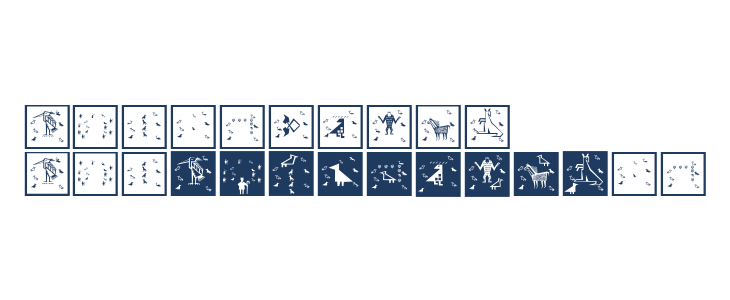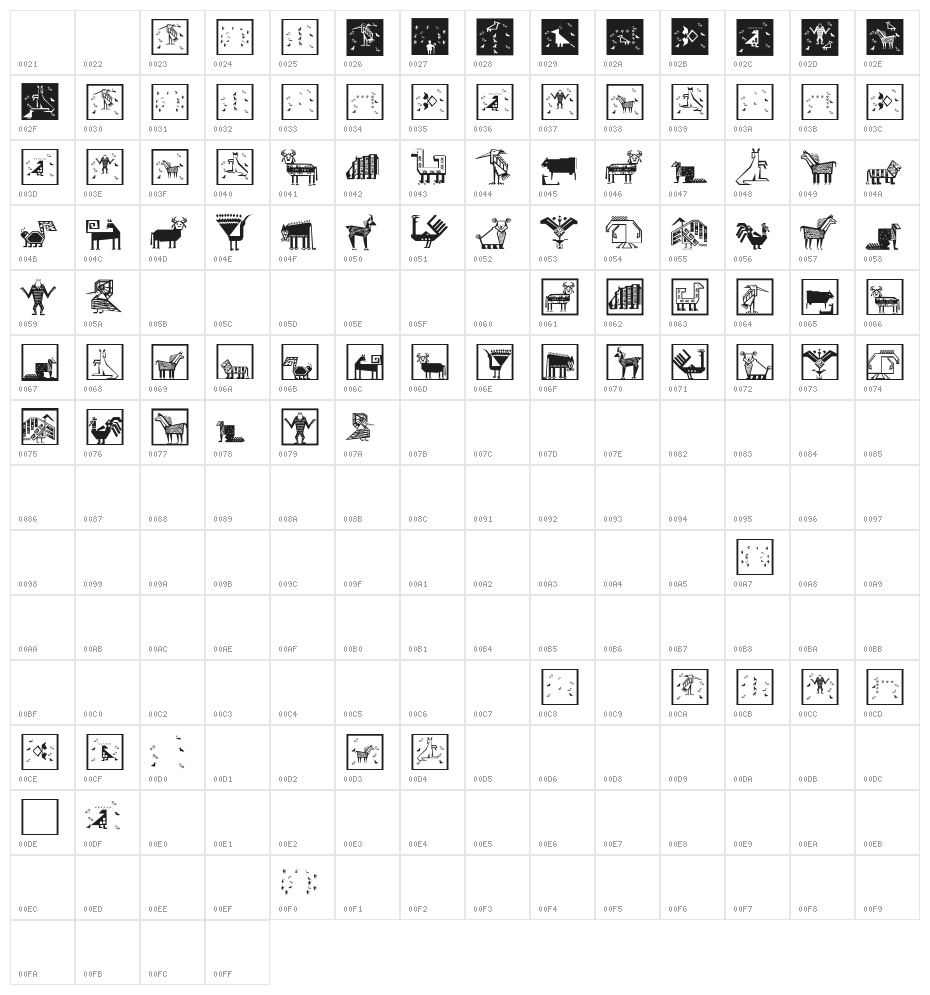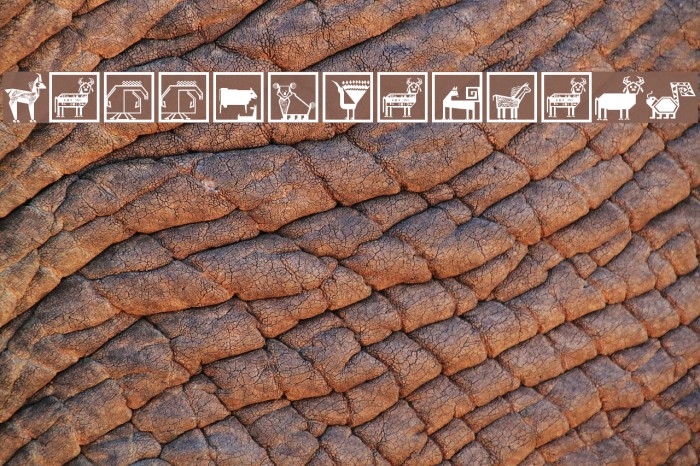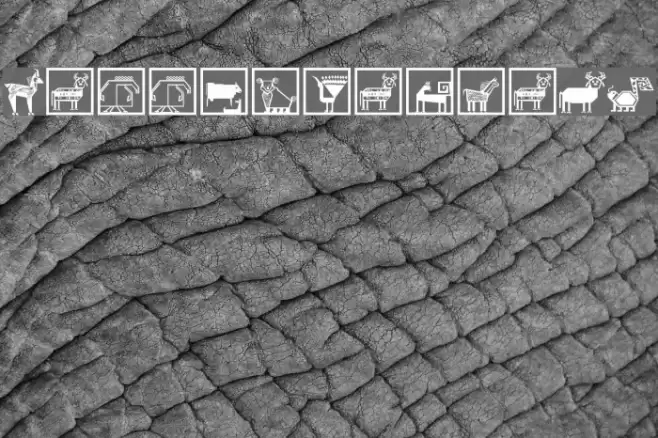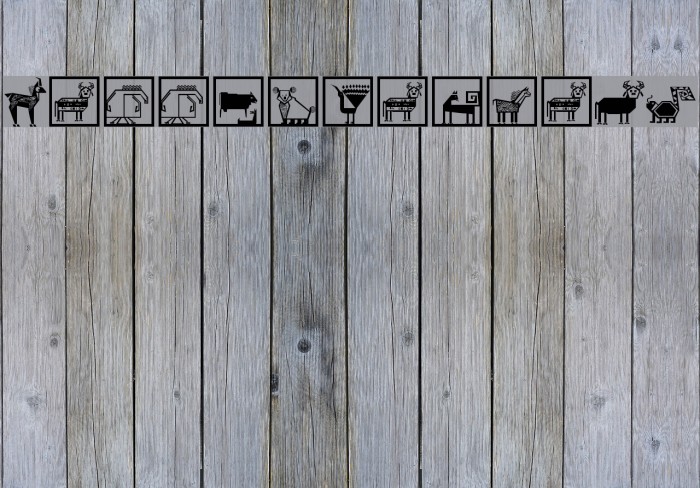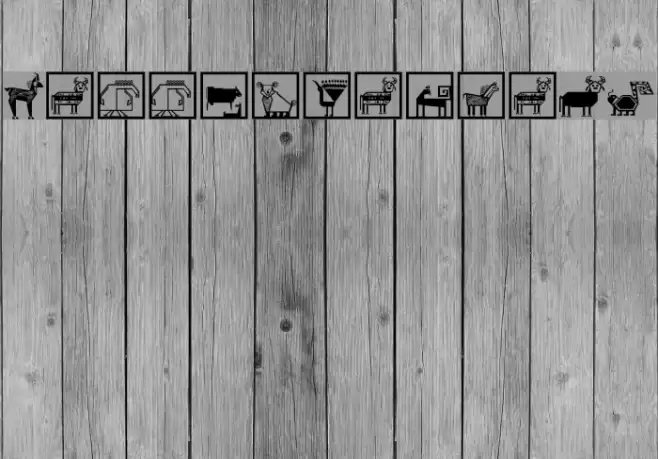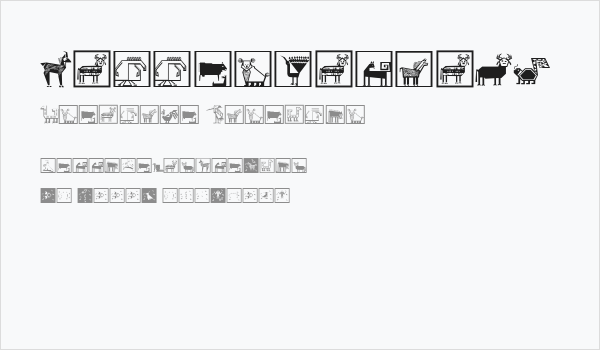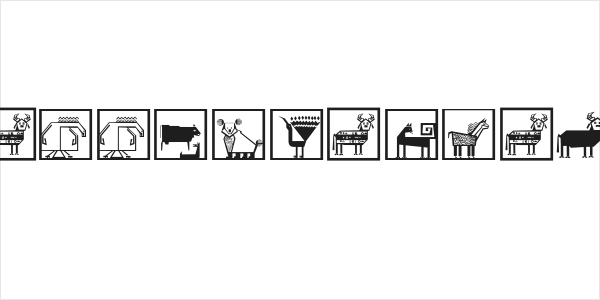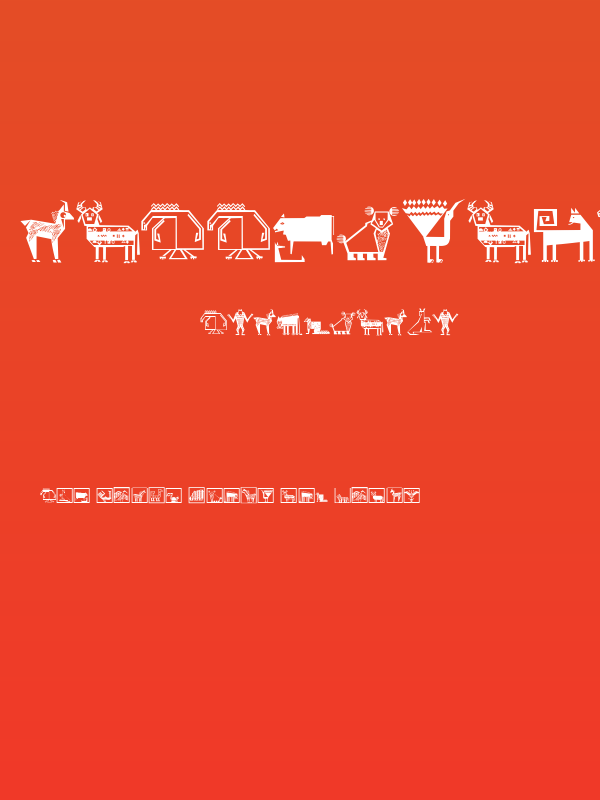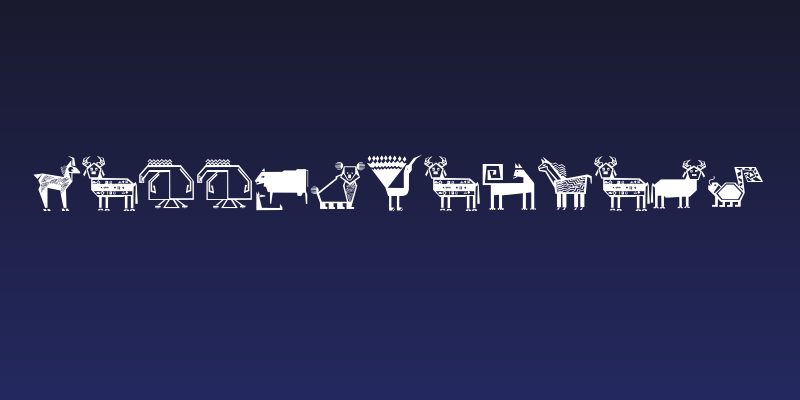
PatternaliaMK Font
PatternaliaMK Description
This font is a highly decorative and whimsical set of characters, each designed to resemble a unique animal or creature. The characters are intricate, with each letter and number crafted to incorporate elements of various animals, giving them a playful and artistic appearance. The font is bold and striking, with a strong visual presence that makes it ideal for creative projects. The characters are enclosed in square frames, adding a structured element to the otherwise freeform designs. The overall style is imaginative and artistic, making it suitable for projects that require a touch of creativity and uniqueness.
| Use Case | Logos, Posters, Art projects |
| Proposed Projects | Ideal for children's books, creative posters, art projects, and branding that requires a playful and artistic touch. |